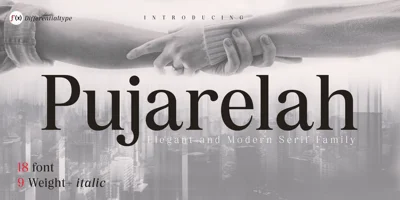
Pujarelah Font
Pujarelah Font is perfect for luxury branding projects, elegant wedding invitations, high-end fashion magazines, boutique hotel signage, premium product packaging, sophisticated logo design, editorial headlines, artistic poster design, upscale restaurant branding, and exclusive event announcements. This refined typeface adds instant sophistication to any design project requiring premium aesthetics.
What makes Pujarelah Font exciting is its distinctive blend of contemporary elegance and timeless sophistication. The font features carefully crafted letterforms with unique character details that create visual distinction while maintaining exceptional legibility. Its refined stroke variations and subtle design flourishes give it a premium feel that instantly elevates any design, making it perfect for brands targeting discerning audiences who appreciate quality and craftsmanship.
Pujarelah Font comes in versatile font families including Regular, Bold, Light, Medium, Thin, and their corresponding Italic variations. Each family member maintains the signature elegance of the original design while offering different weights to accommodate various design hierarchies and stylistic requirements across different media applications.
Whether you're designing for luxury markets or creating premium brand experiences, Pujarelah Font delivers the sophisticated typography needed to convey exclusivity and refinement. The font's elegant character makes it an excellent choice for designers who want to create memorable impressions and communicate premium quality through thoughtful typography that resonates with upscale target audiences.